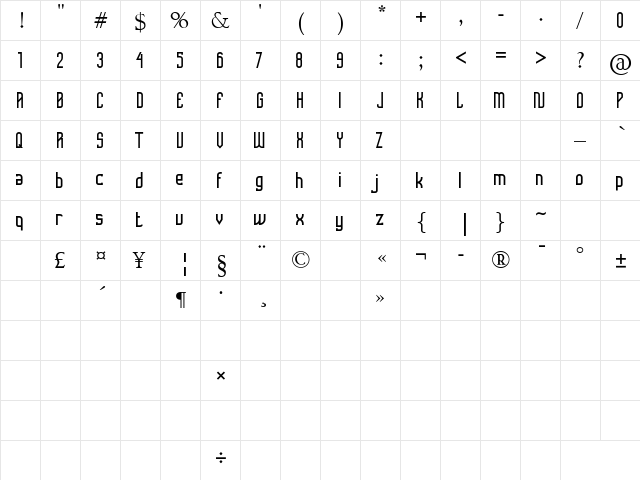
Femilia Regular
Design Context for Femilia Typeface
Femilia is a composed and adaptable typeface that performs quietly and consistently across a wide range of design contexts.